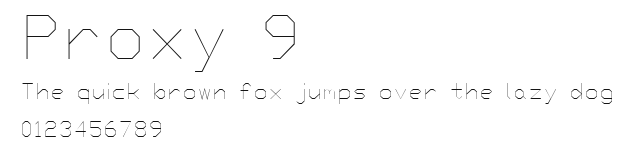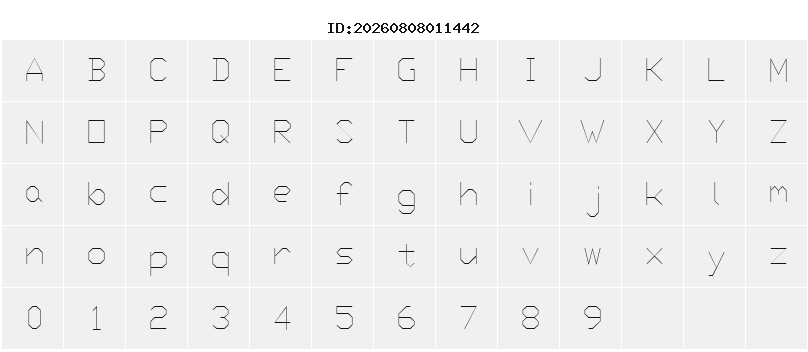
• Font Name: Proxy 9
• Full Font Name: Proxy 9
Proxy 9.ttf is a modern, elegant sans-serif font designed for ultimate readability and visual harmony. Perfect for branding, headlines, web design, and print materials.